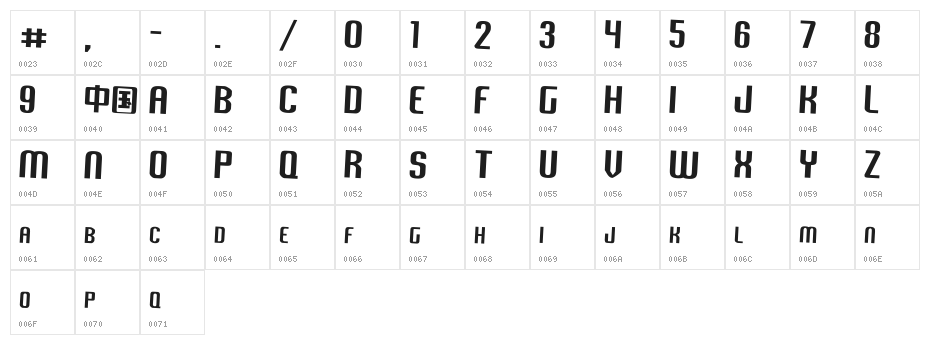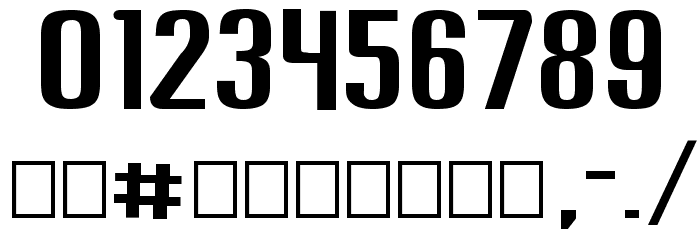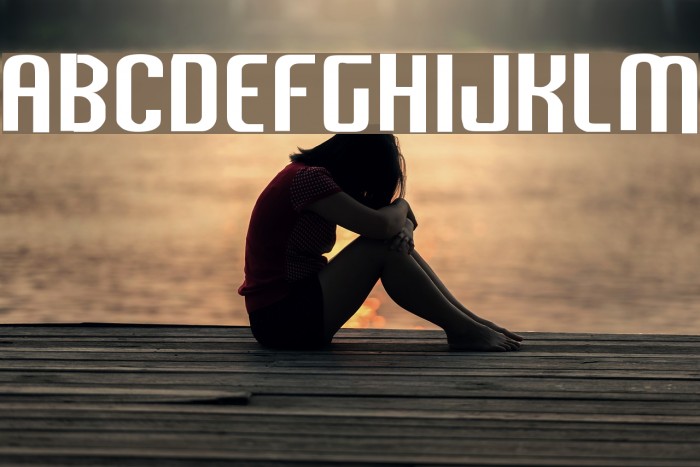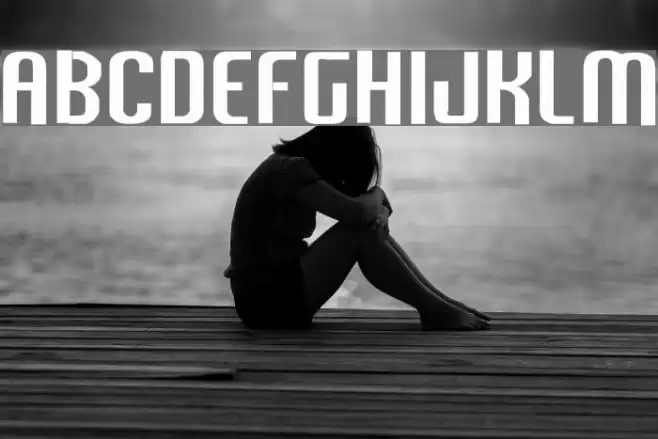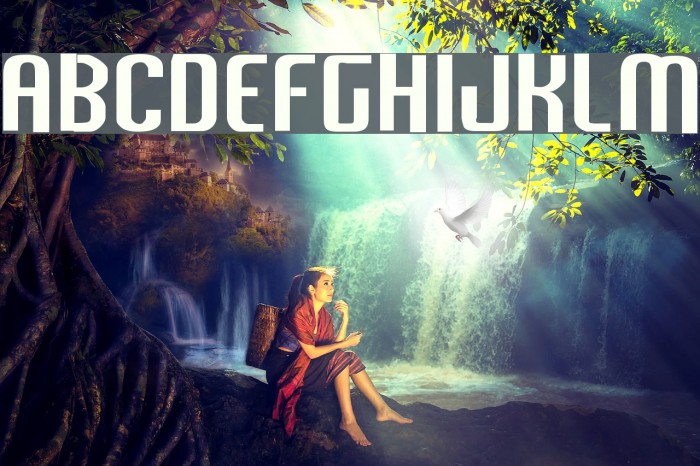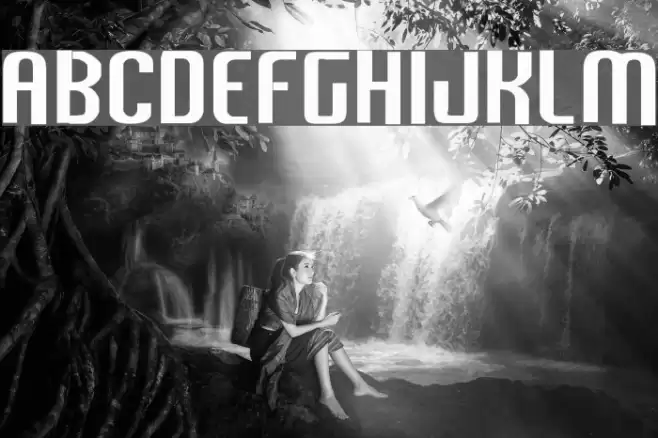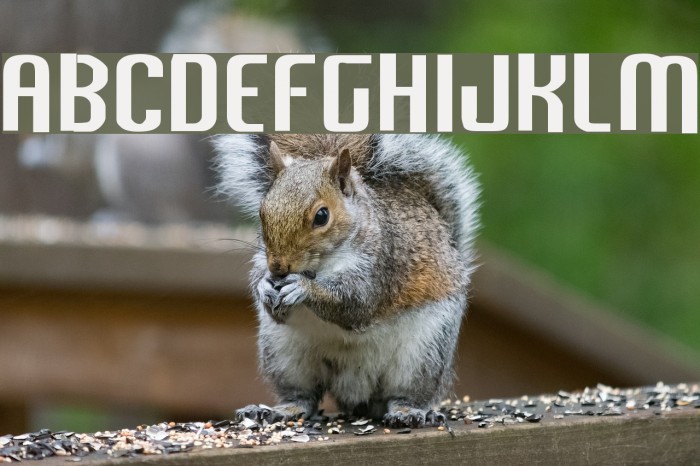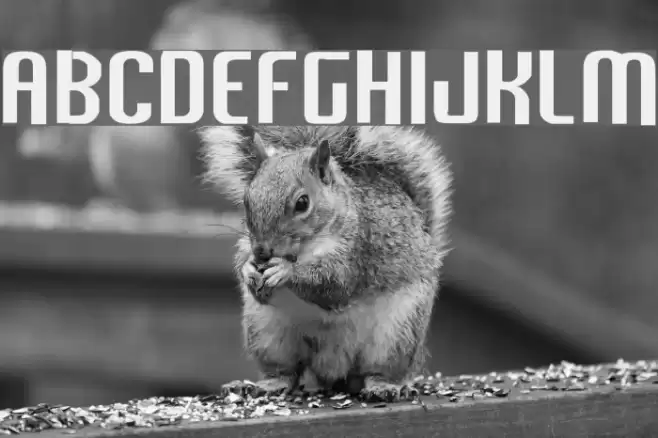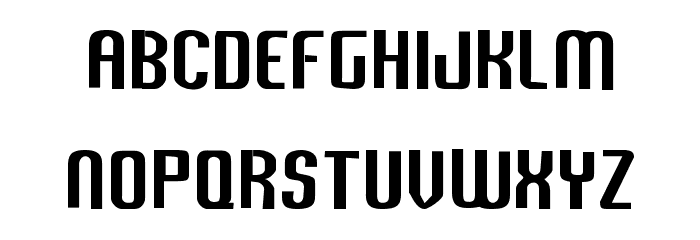
Vixene Font
Vixene Description
This font features a bold and modern design with a geometric structure. The characters are tall and slightly condensed, giving a sleek and streamlined appearance. The uppercase letters are uniform in height, while the lowercase letters maintain a consistent style that complements the uppercase. The numbers are clear and easy to read, with a similar geometric style. The special characters are designed to match the overall aesthetic, ensuring a cohesive look across all elements. This font's clean lines and contemporary feel make it versatile for various design applications.